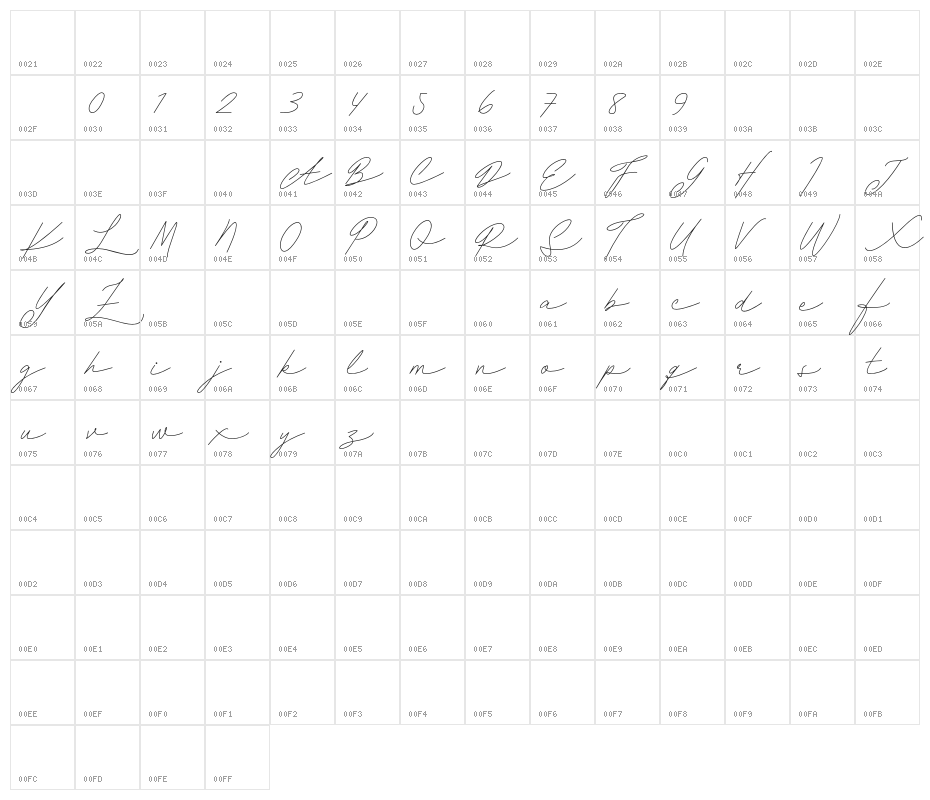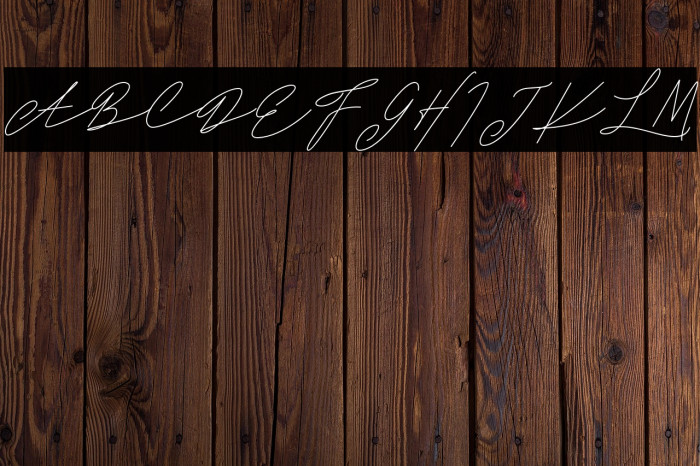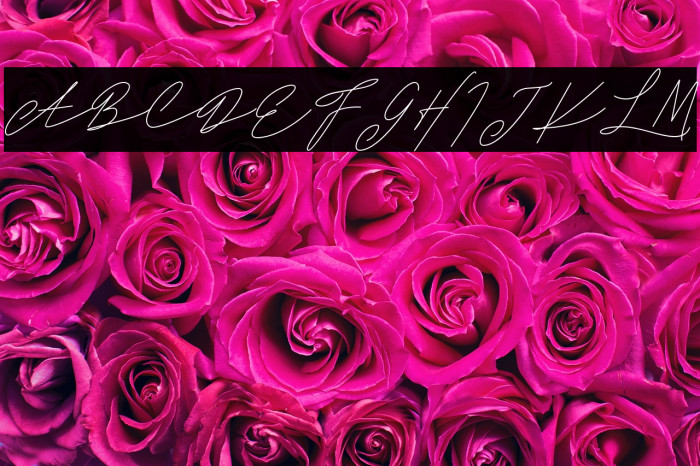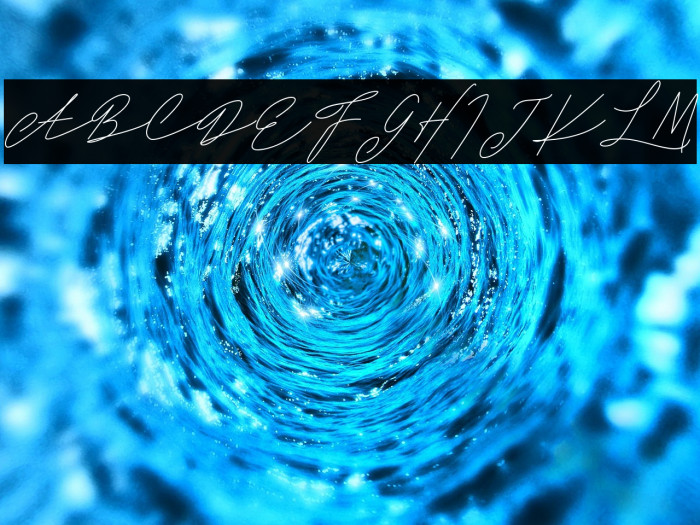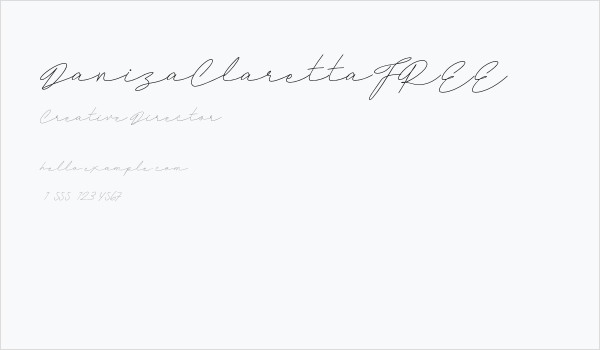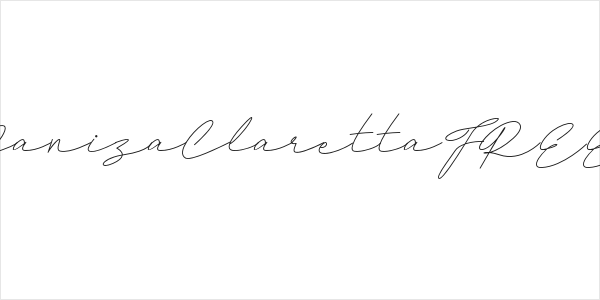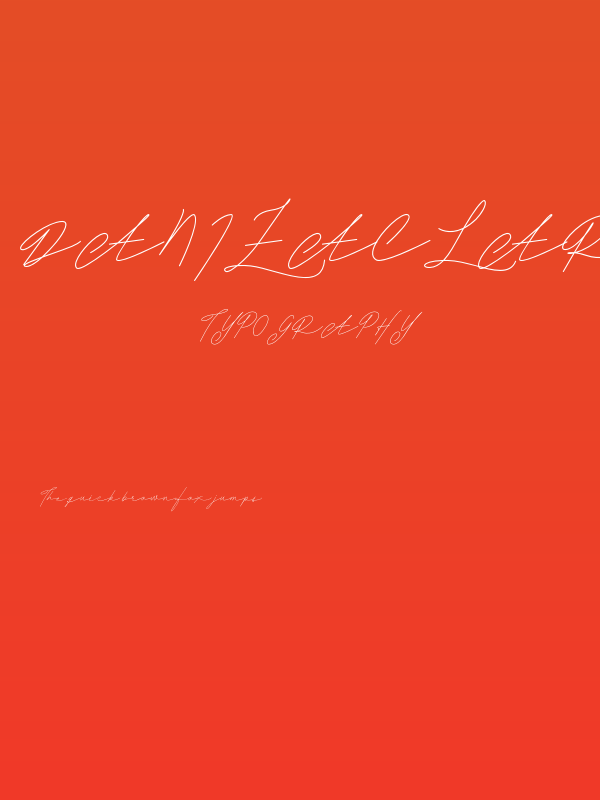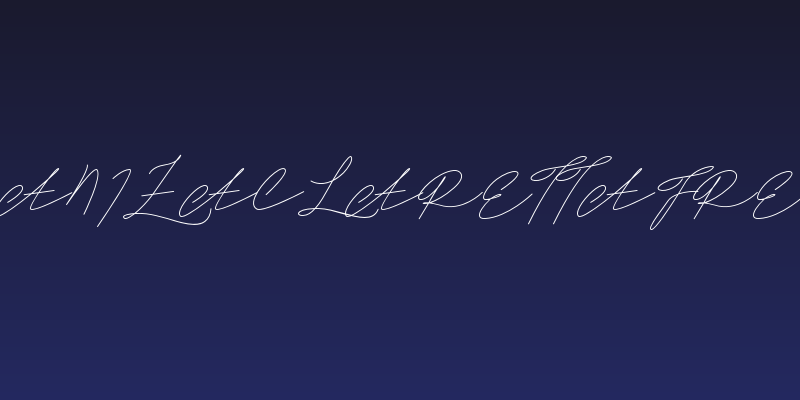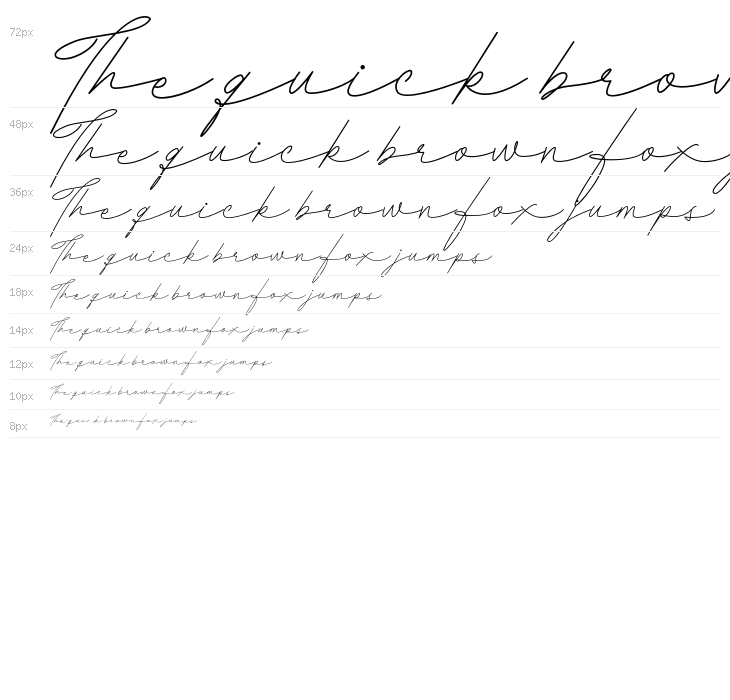
DanizaClarettaFREE Font
DanizaClarettaFREE Description
A delicate, monoline handwritten script with fluid, connected strokes and a natural, casual appearance. The characters are slightly slanted and feature consistent thin lines, evoking a personal, handwritten feel.
| Overall Style | Casual, Elegant, Handwritten |
| Use Case | Logos, Invitations, Personal notes, Decorative headings |
| Proposed Projects | Invitations, personal branding, greeting cards, quotes, social media graphics. |